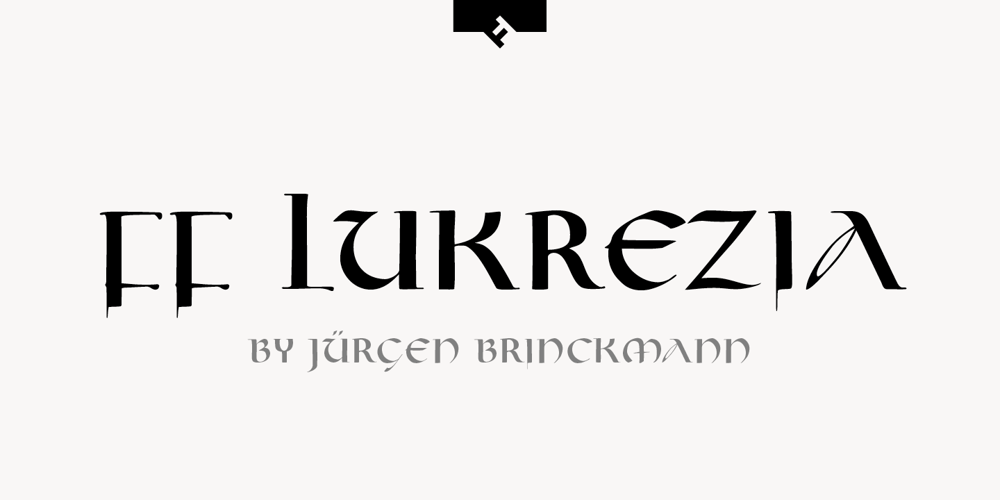
FF Lukrezia
FF Lukrezia font
FF Lukrezia Font Family was designed by Jürgen Brinckmann and published by FontFont. FF Lukrezia contains 1 styles and family package options. German type designer Jürgen Brinckmann created this blackletter FontFont in 1993. The font is ideally suited for film and tv, music and nightlife, poster and billboards as well as software and gaming. FF Lukrezia provides advanced typographical support with features such as ligatures, alternate characters, and stylistic alternates. It comes with proportional lining figures.